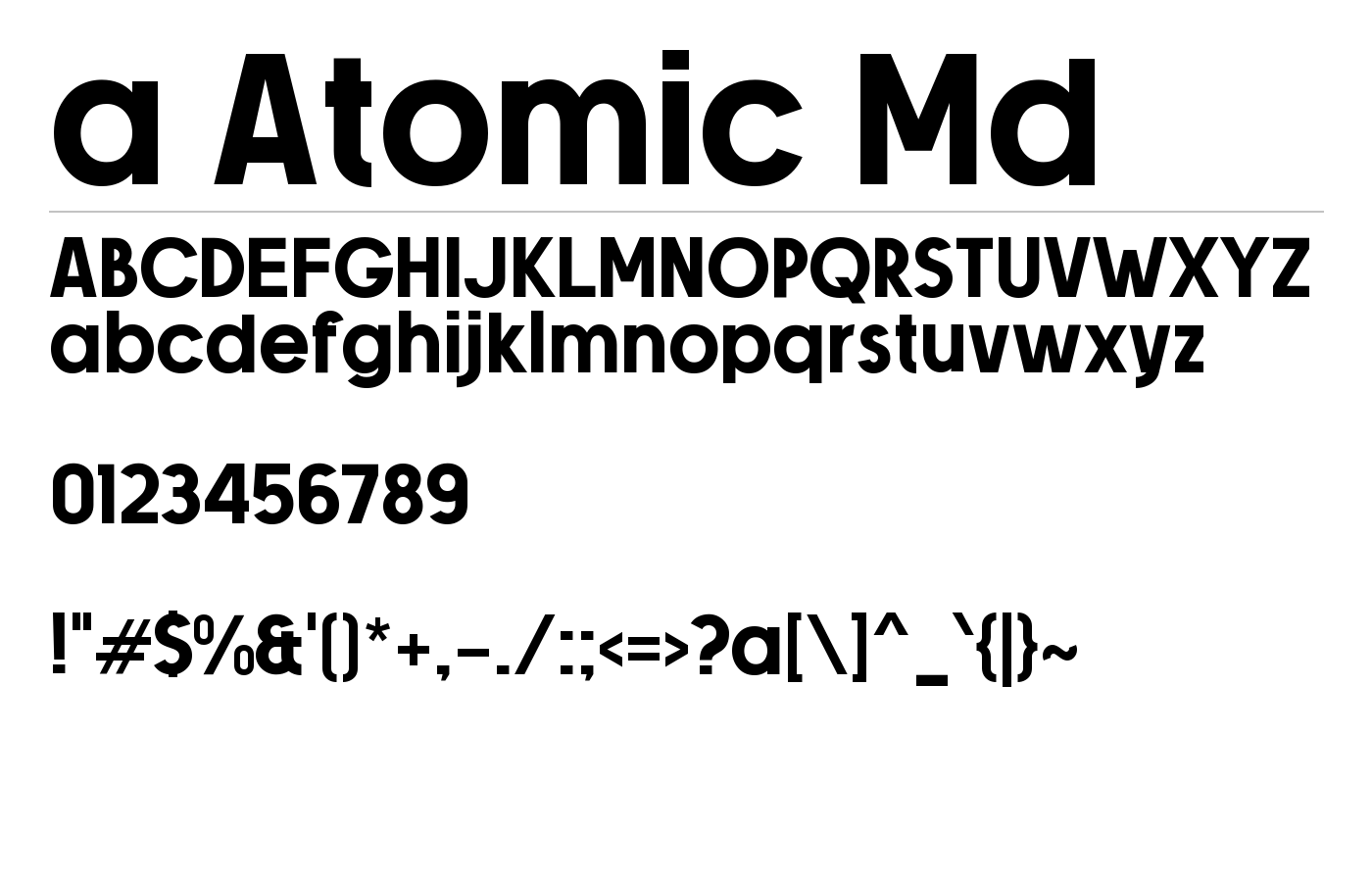
Atomic Md is a bold, geometric sans serif font with a modern, clean feel. Its high x-height, uniform stroke weight, and slightly condensed width make it highly legible and impactful, perfect for attention-grabbing headlines, branding, and editorial use. The straightforward, no-frills design conveys confidence and clarity, well-suited for contemporary and professional visual identities.
a Atomic Md Font